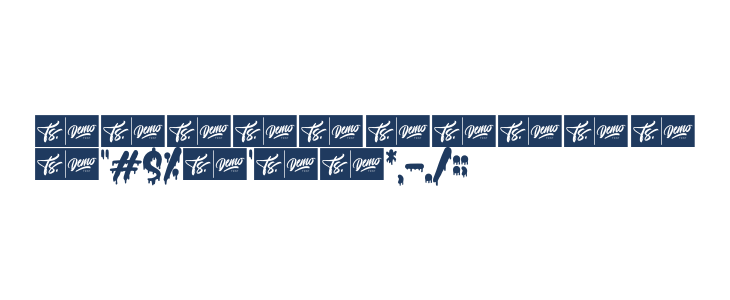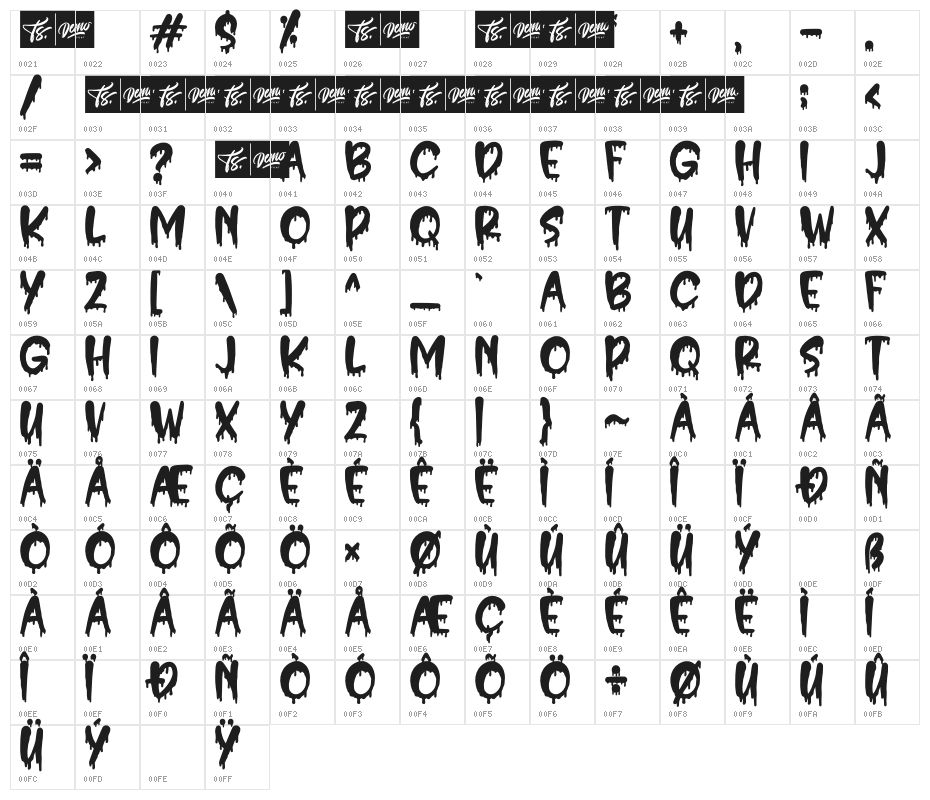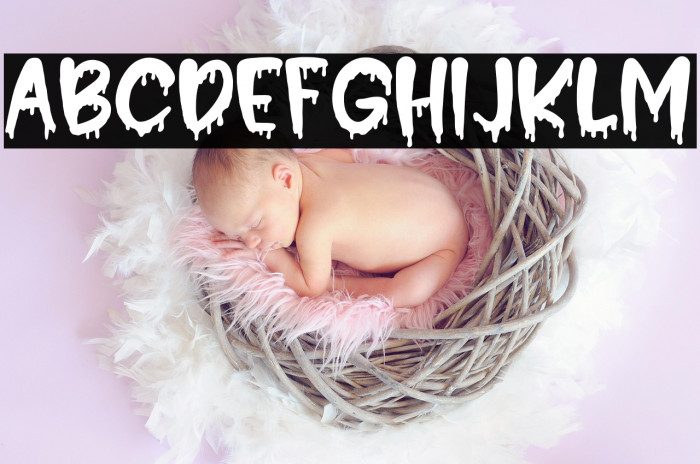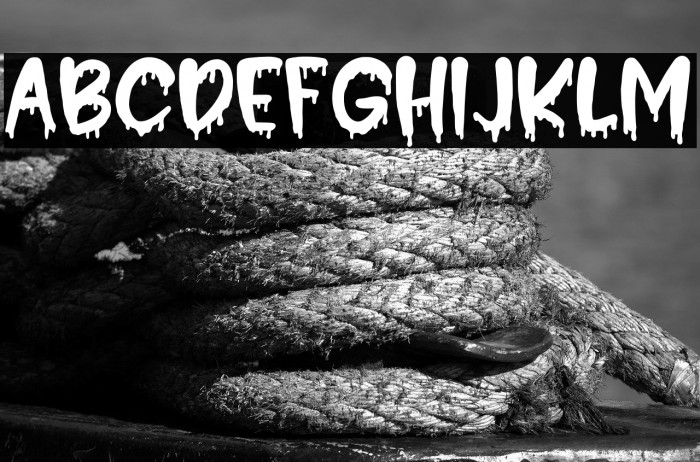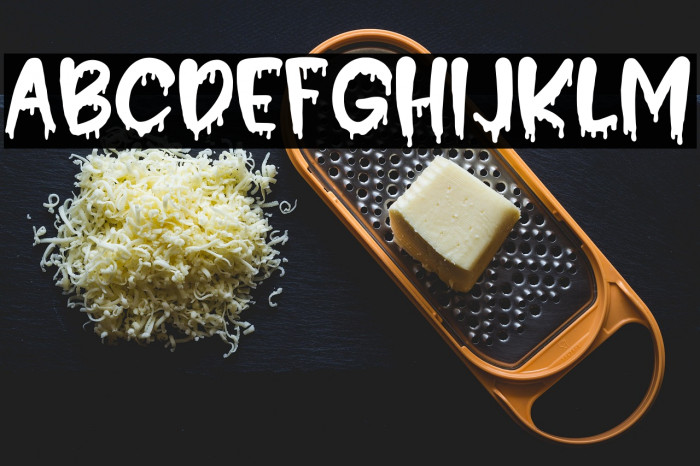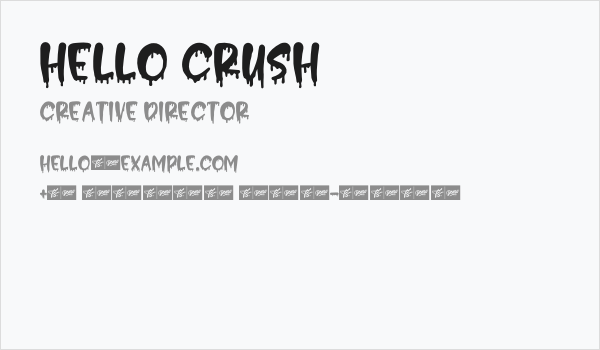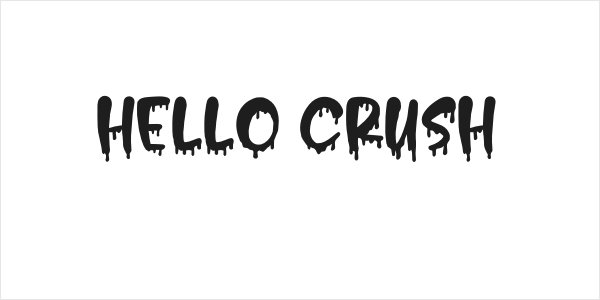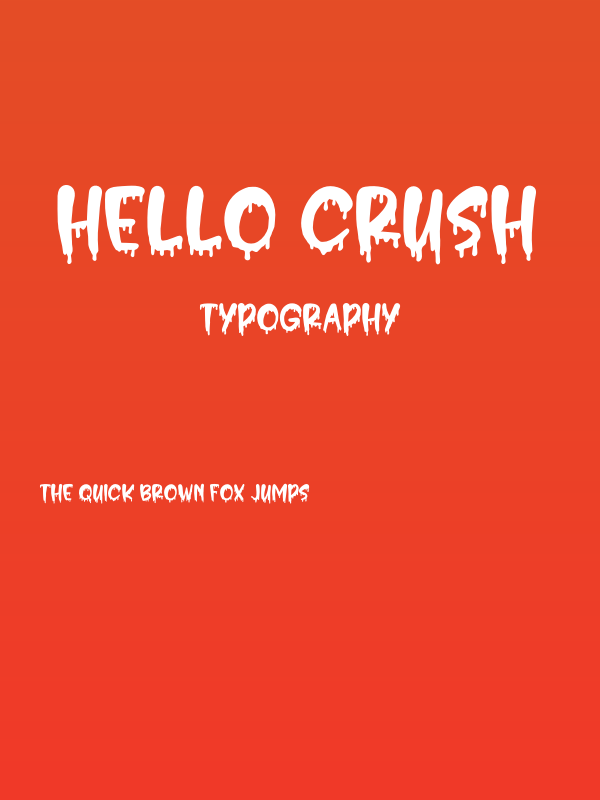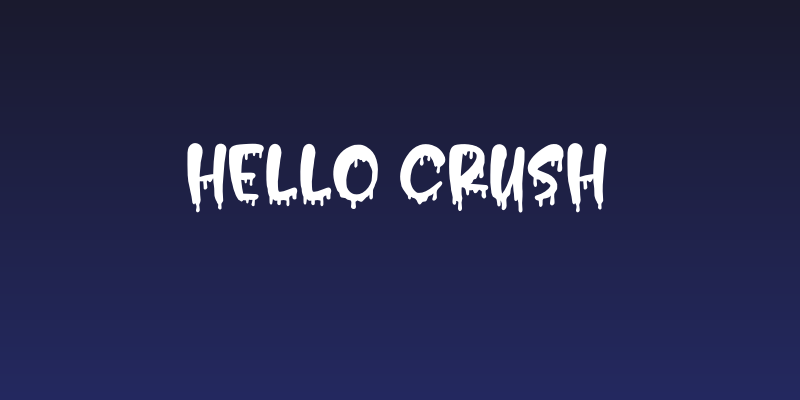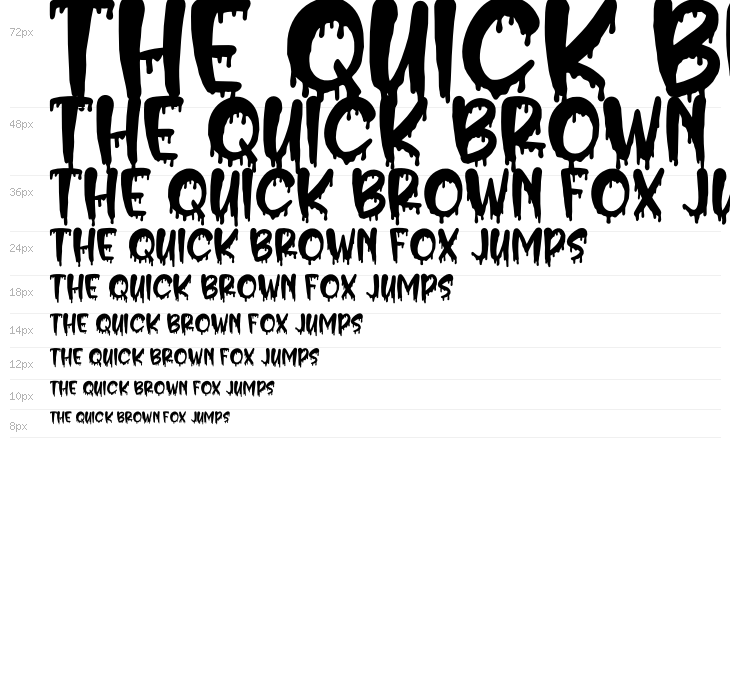
Hello Crush Font
Hello Crush Description
This font features a bold, dripping style that gives it a unique, edgy appearance. The uppercase and lowercase letters are designed with a consistent dripping effect, reminiscent of melting paint or liquid. This characteristic makes it stand out as a decorative or display font, perfect for creating a dramatic impact. The characters are bold and have a slightly irregular shape, adding to the overall dynamic and playful feel. The font includes a full set of uppercase and lowercase letters, numbers, and a selection of special characters, all maintaining the dripping motif.
| Proposed Projects | Ideal for Halloween-themed designs, horror movie posters, edgy branding, or any project needing a dramatic and playful touch. |